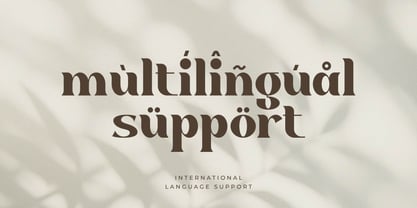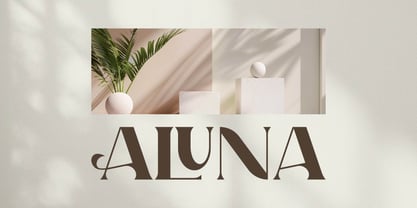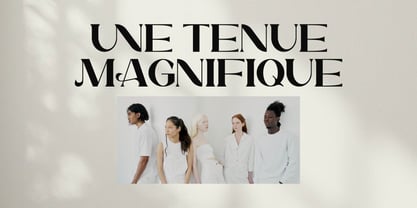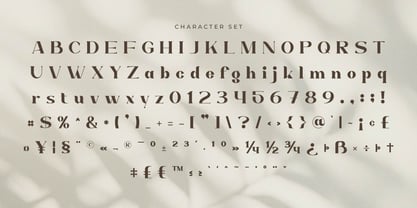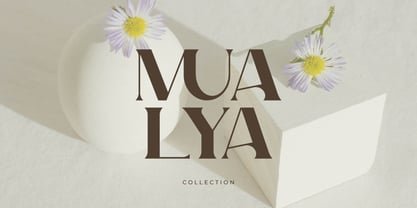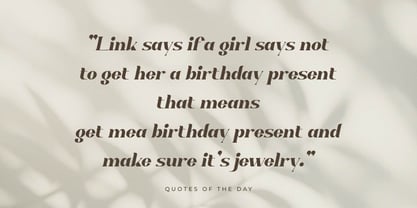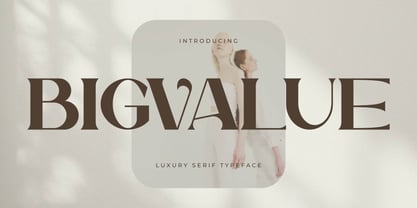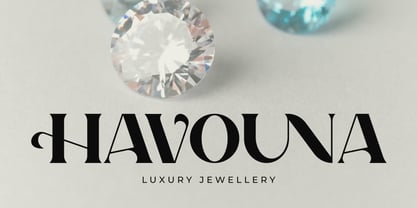
Bigvalue
by Artiveko
The Bigvalue Font Family was designed by Iwan Alwan and published by Artiveko. Bigvalue contains 2 styles and family package options. More about this family
True luxury is defined by the details—and Bigvalue was designed to celebrate them. Bigvalue is a premium luxury serif typeface specifically crafted for jewelry houses, fine boutiques, beauty labels, and high-end lifestyle brands. With its refined serif details, graceful proportions, and timeless elegance, Bigvalue establishes a sophisticated visual identity that exudes exclusivity, polish, and endurance. This typeface is ideal for jewelry logos, luxury packaging, boutique branding, cosmetic labels, perfume boxes, fashion editorials, wedding stationery, premium catalogs, and elegant social media campaigns, effortlessly elevating every design with a sense of prestige. Its balanced contrast ensures beautiful headlines while maintaining exceptional readability across both print and digital applications. Whether you're launching a fine jewelry collection or building a premium lifestyle brand, Bigvalue delivers the elegance and confidence expected from truly luxurious typography. Bigvalue isn't just a serif font—it's a signature of timeless luxury and refined craftsmanship.
Designers: Iwan Alwan
Foundry: Artiveko